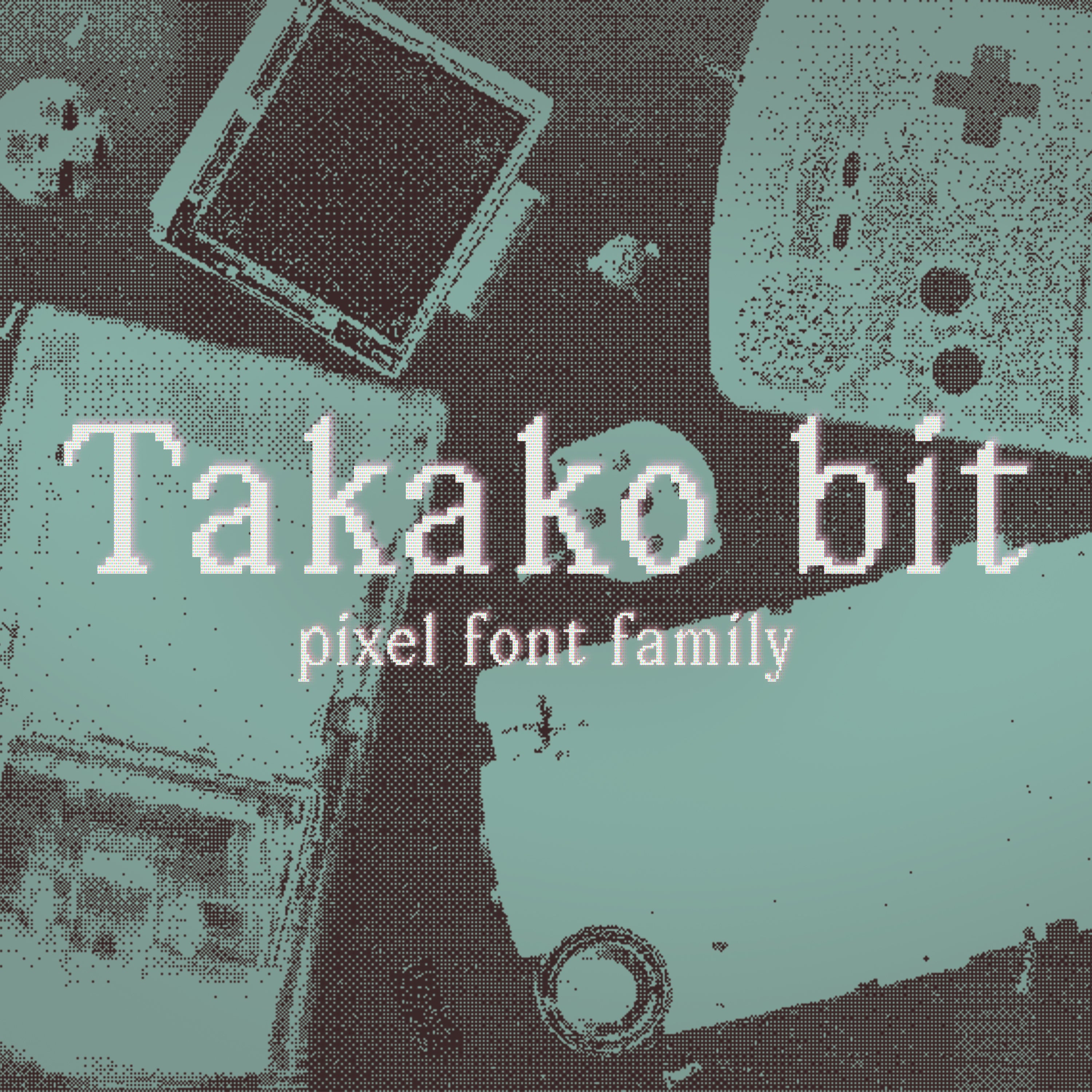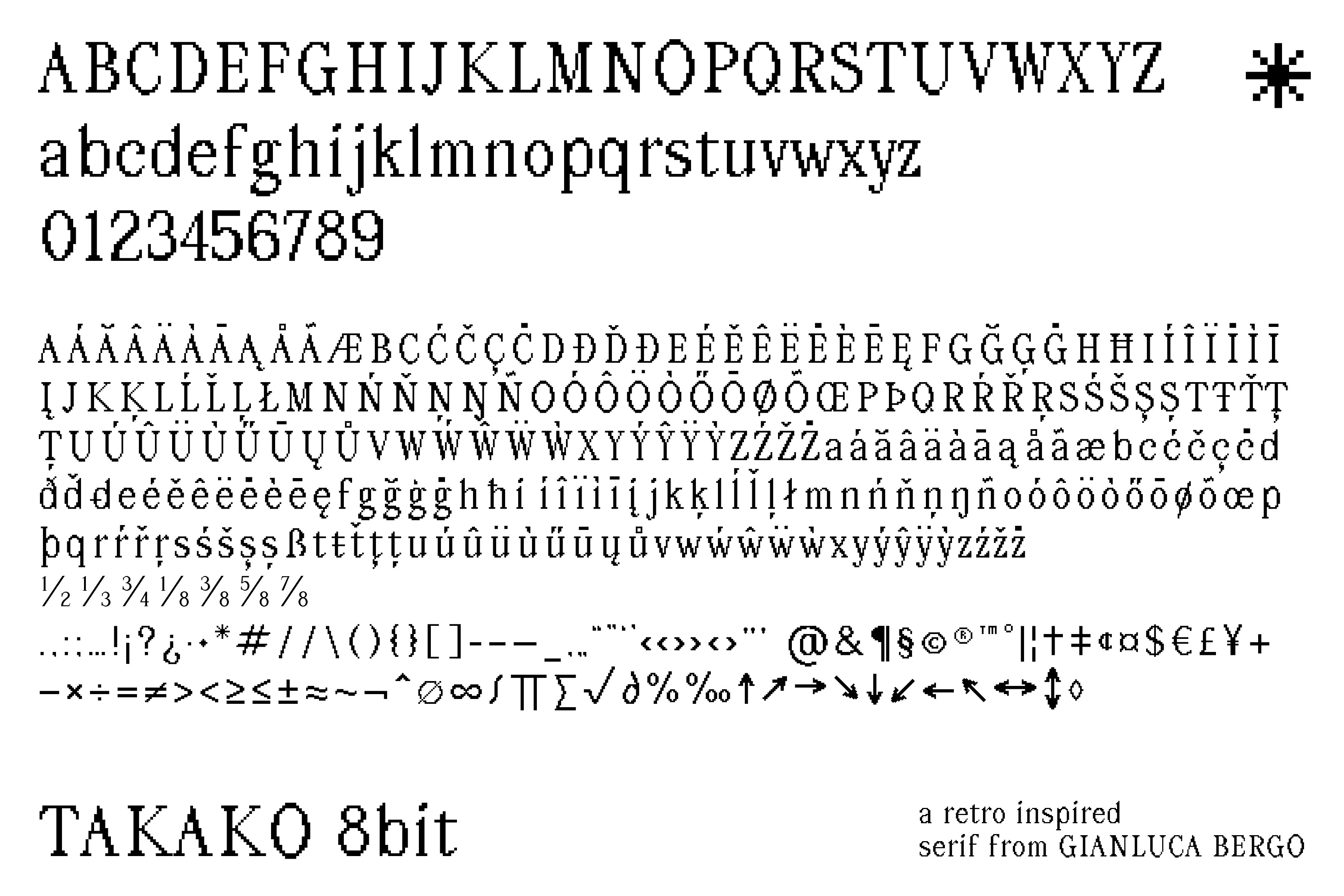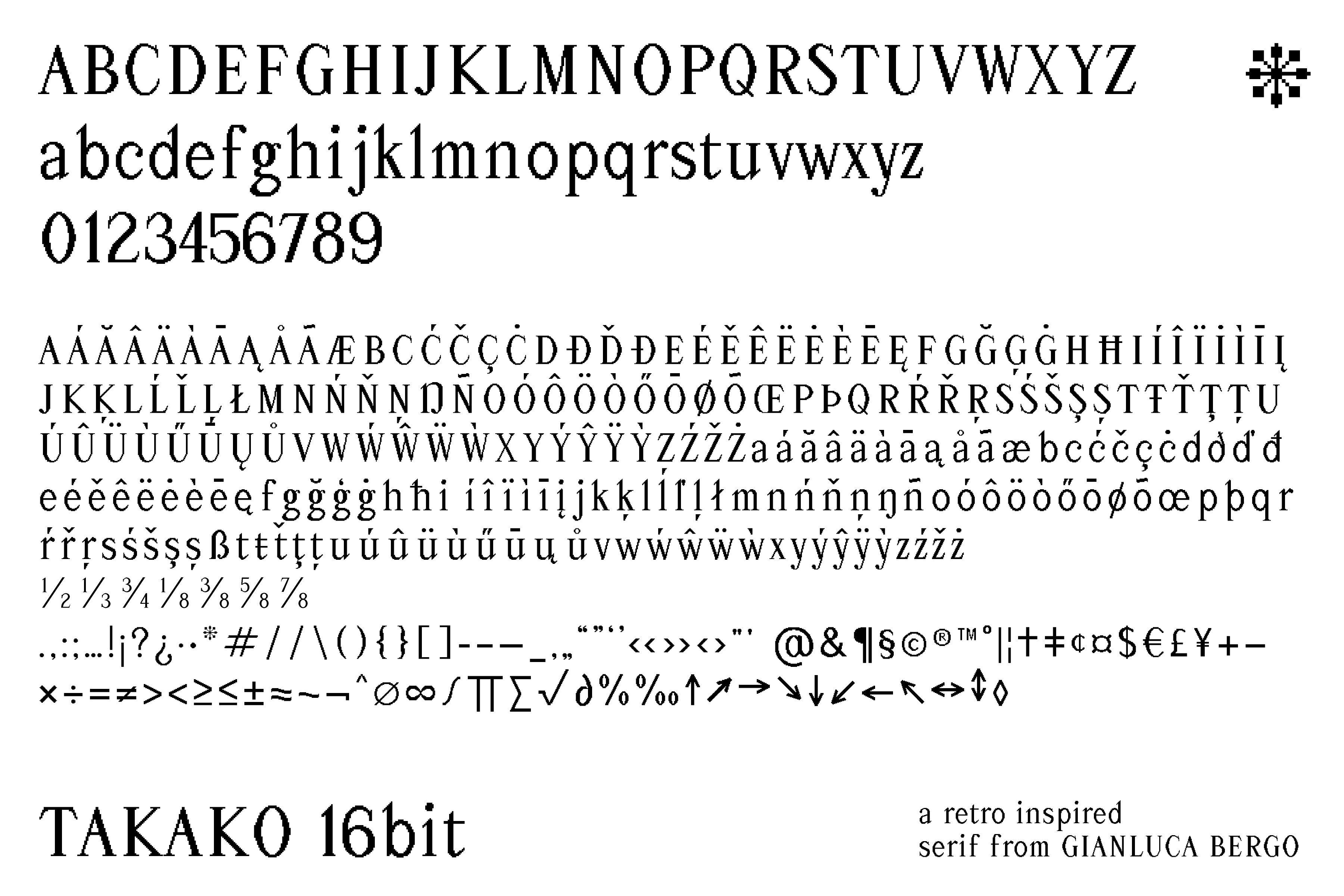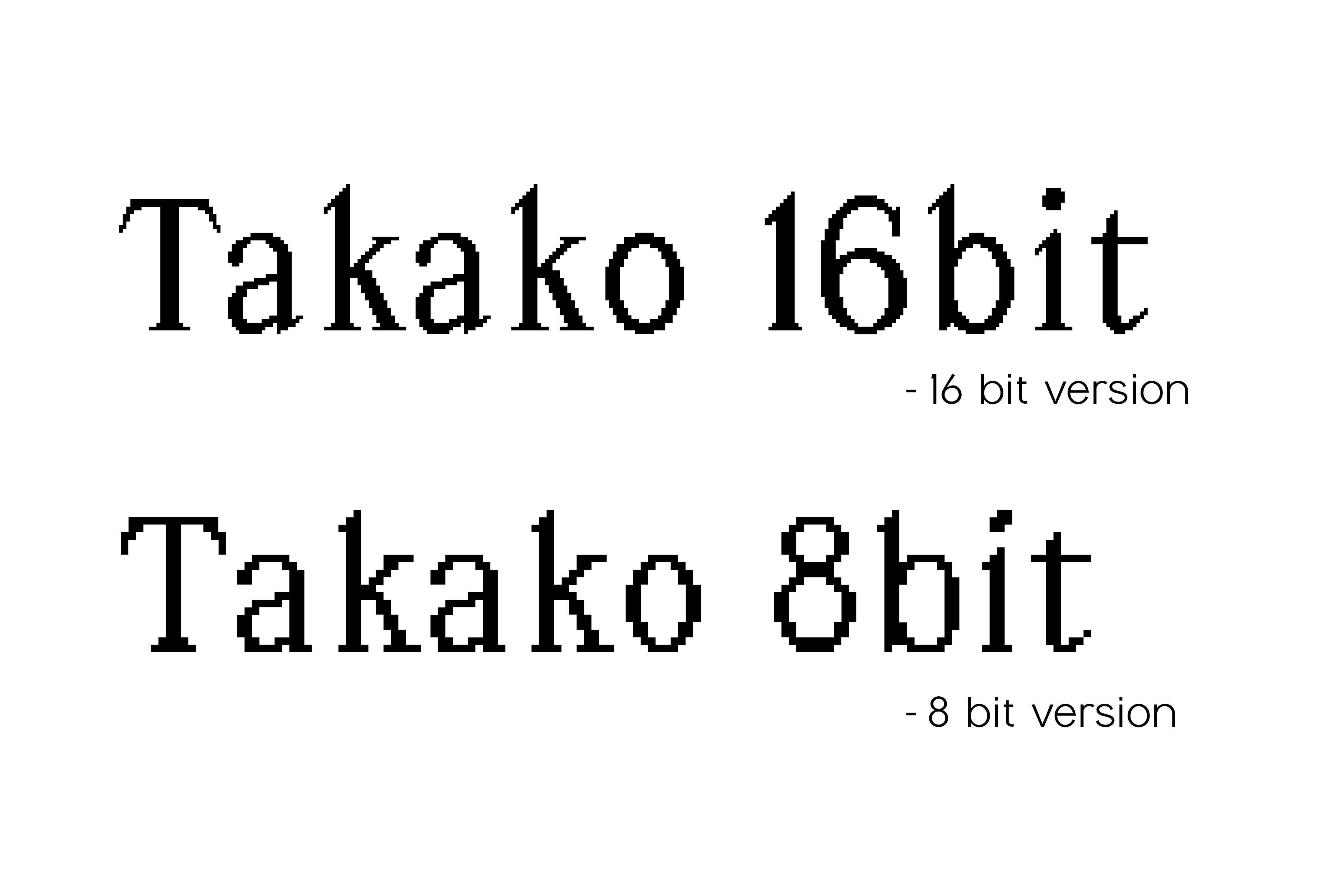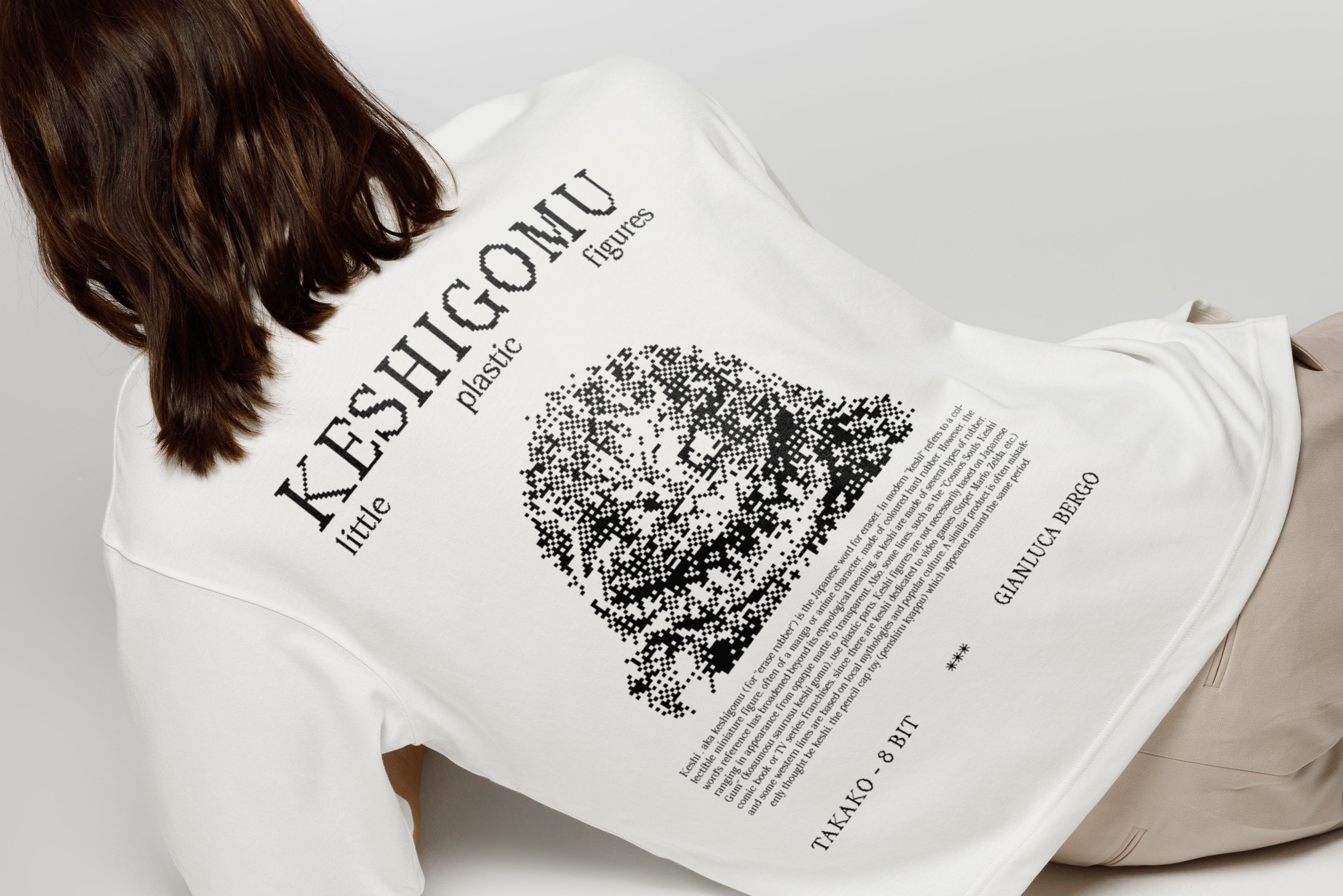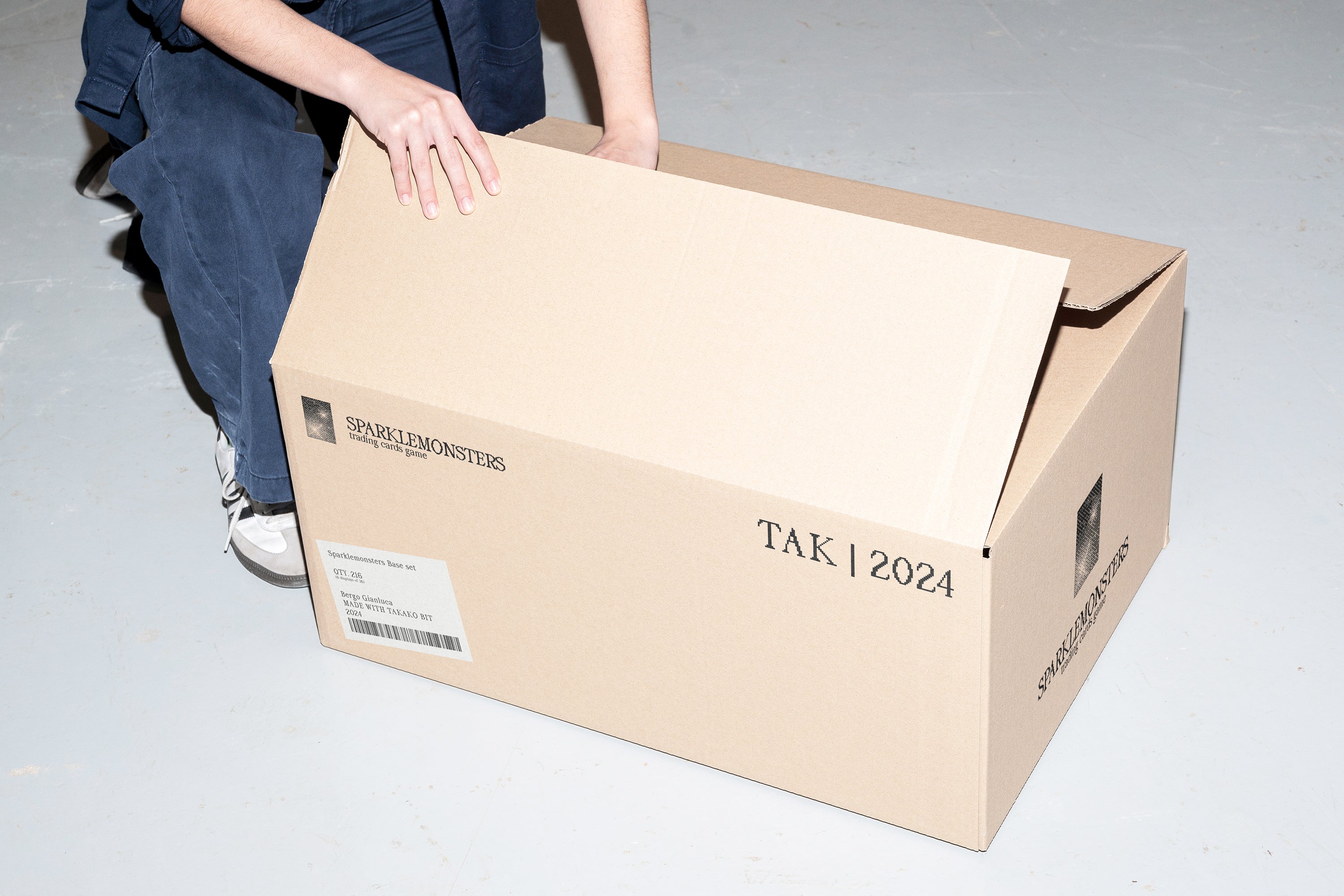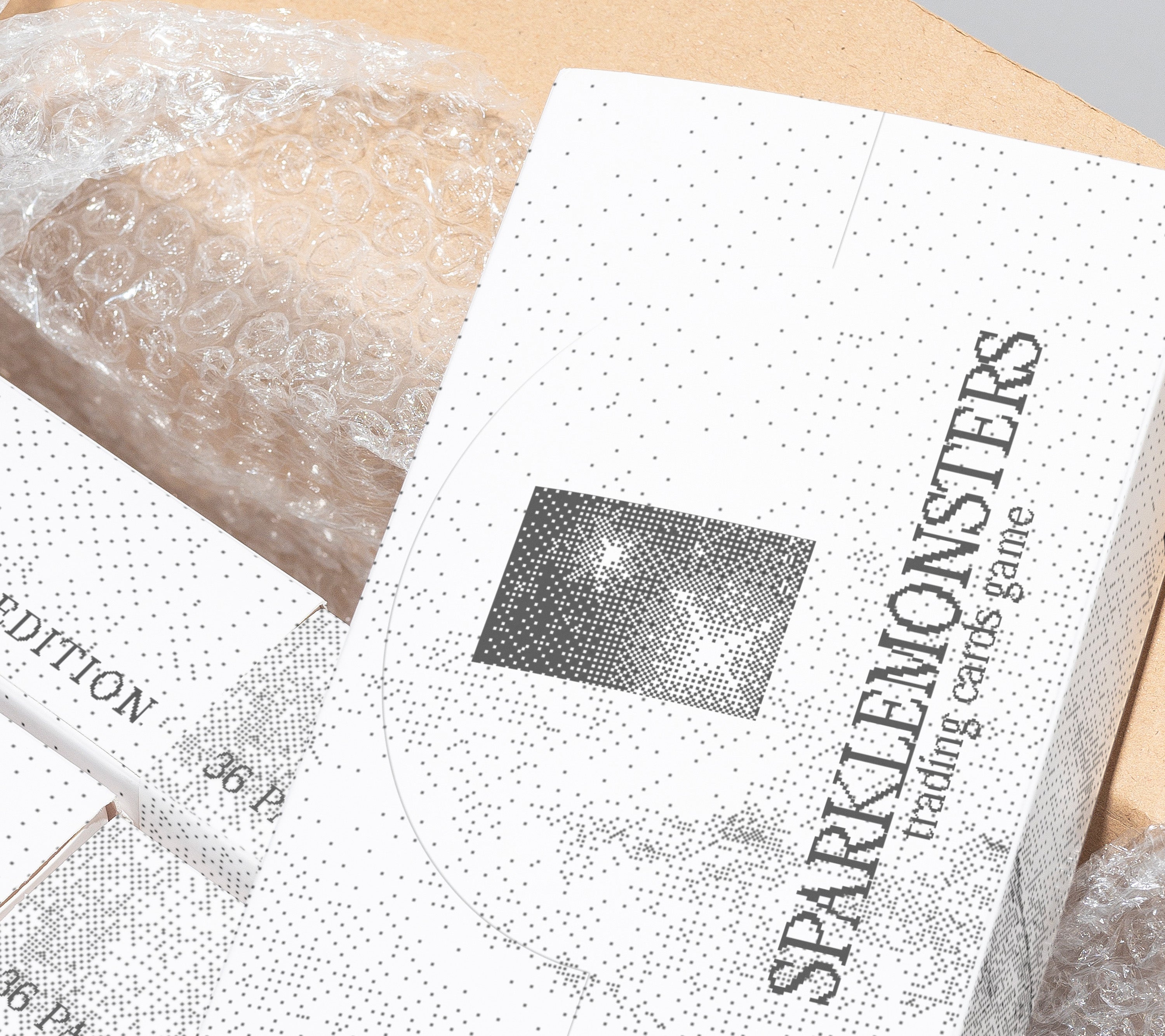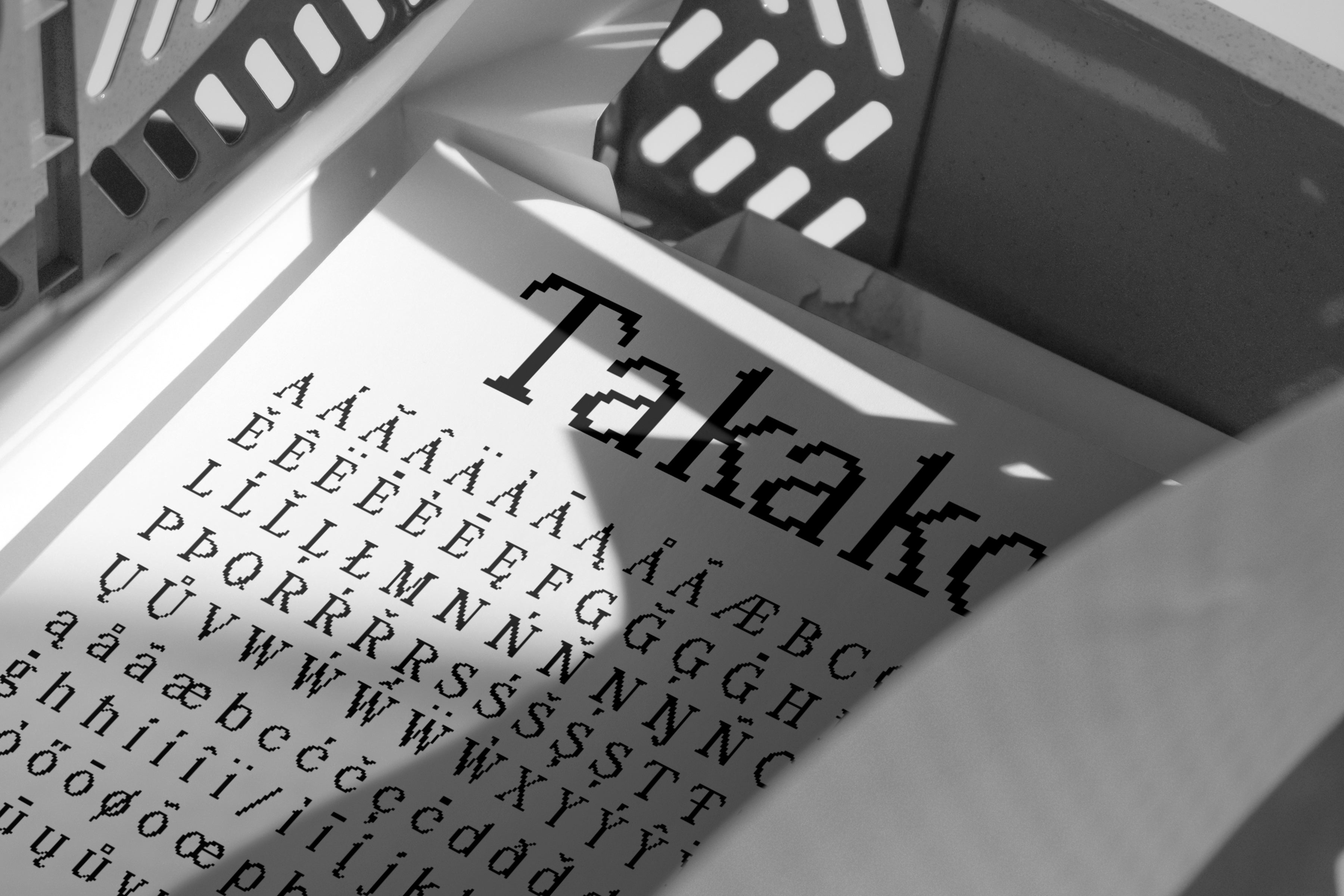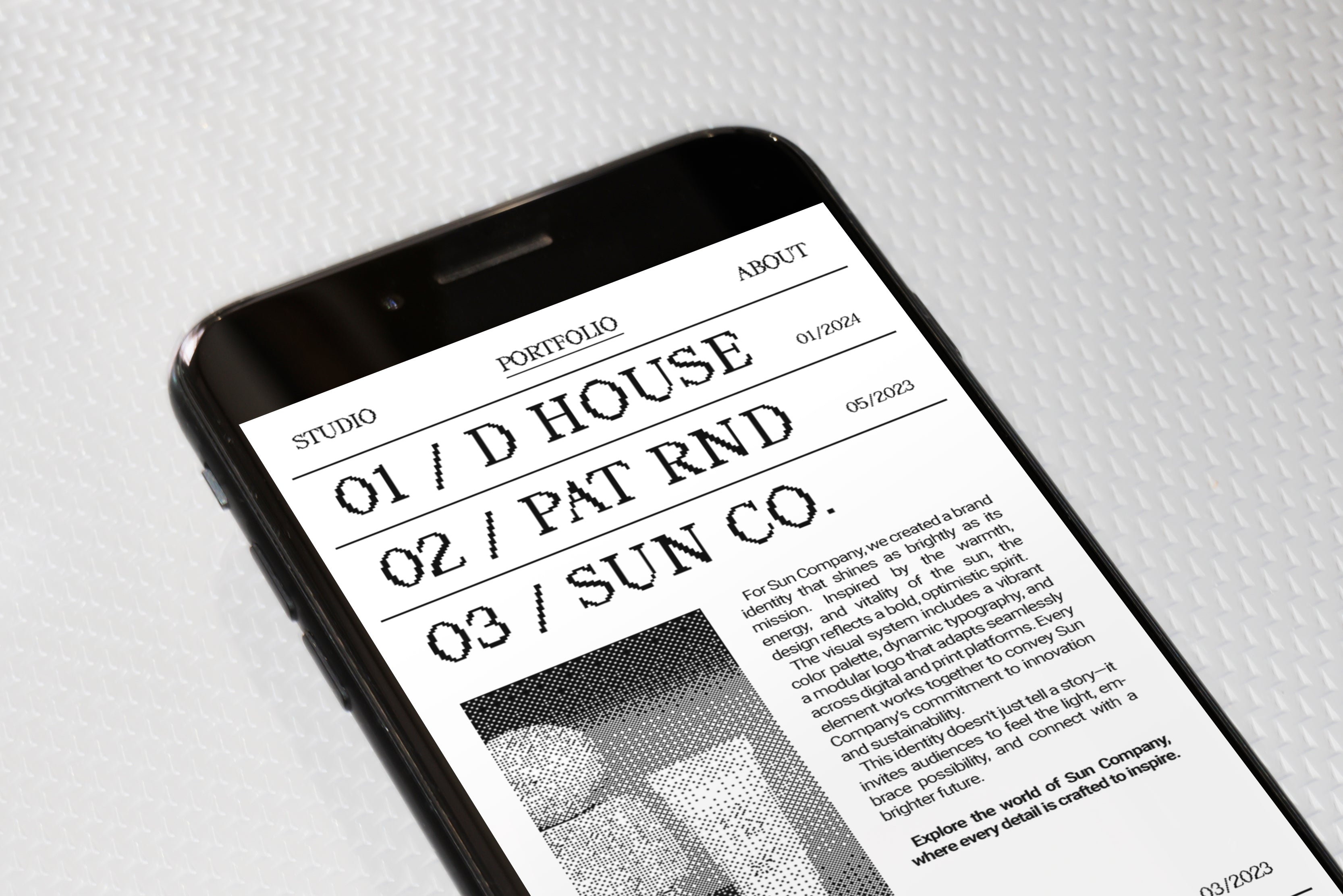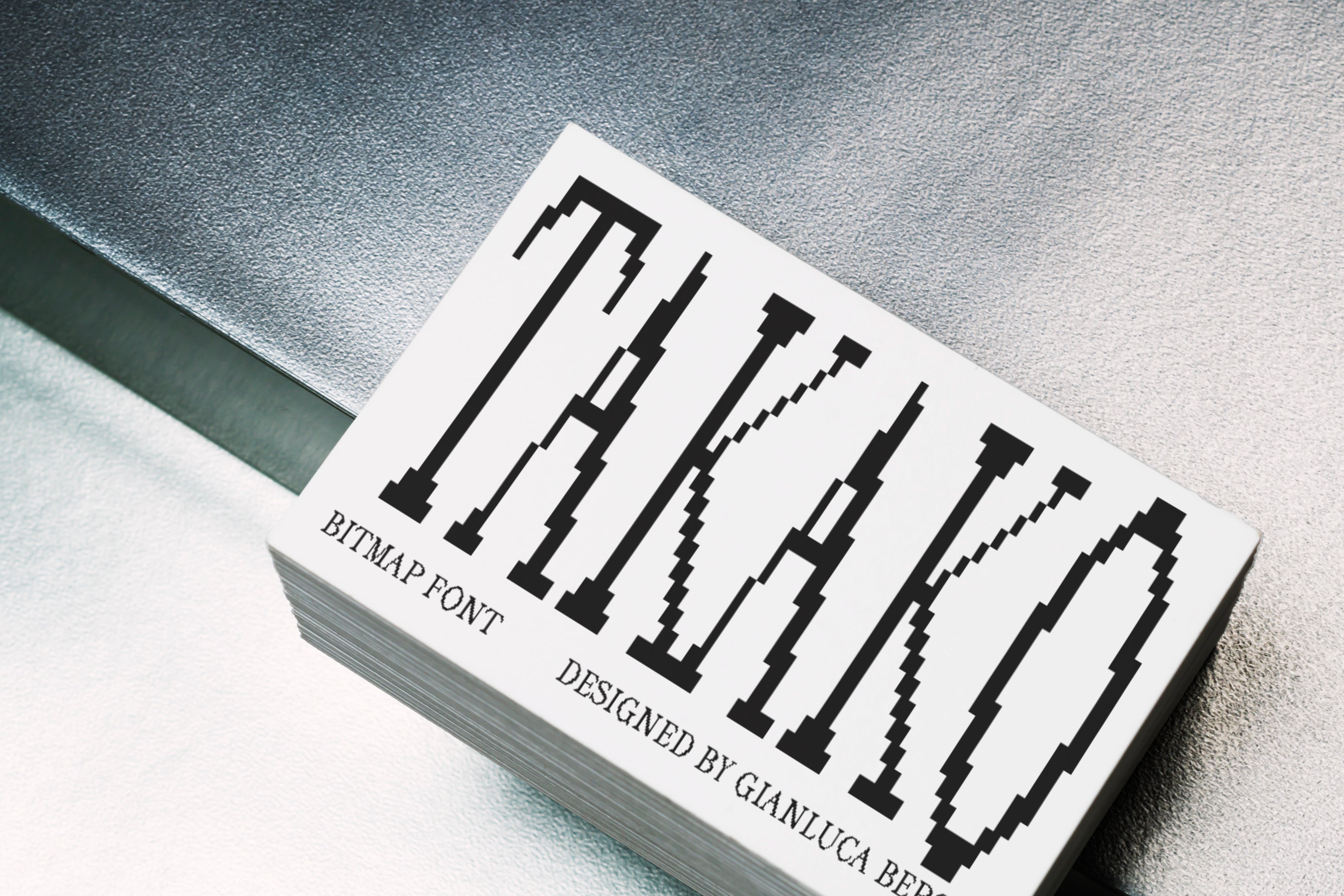
Takako bit - Pixel serif font family
The Takako Bit - Pixel serif font family is a pixel-based reinterpretation of the Takako serif typeface, available in two styles: 8-bit and 16-bit. It combines classical typographic elements with pixel art, featuring sharp serifs for strong visual impact and readability, making it suitable for various design projects.